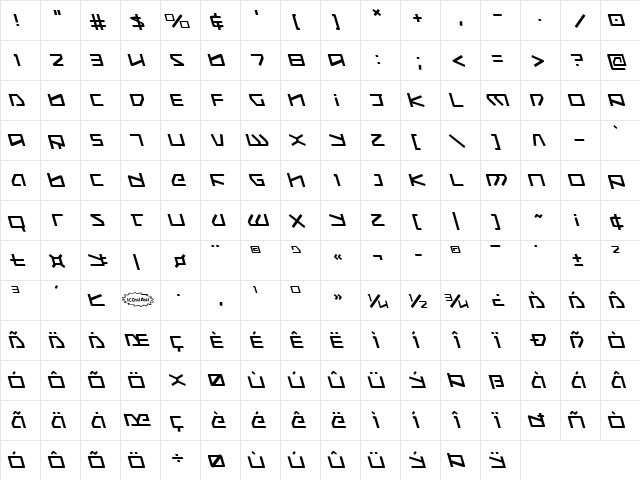
Kobold Leftalic Italic Font Preview
Kobold Leftalic Italic
Kobold Leftalic Italic Font Details
Design Context for Kobold Leftalic Typeface
Kobold Leftalic is a composed and adaptable typeface that performs quietly and consistently across a wide range of design contexts. The dynamic lean of this cut emphasises speed and emphasis in any layout. The heavy weight commands attention and anchors typographic hierarchies.
Pro Tip: Use Kobold Leftalic for emphasis, pull quotes, and subheadings where its slanted energy can add rhythm to the layout.